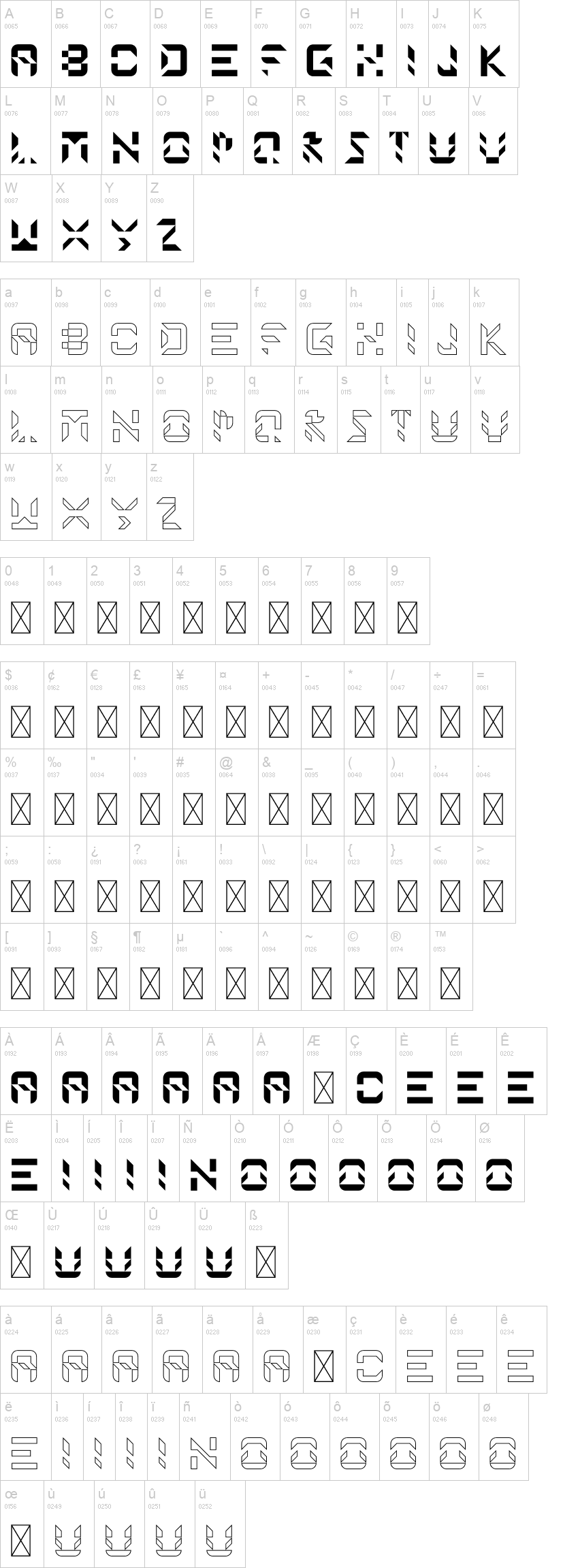
Jig Saw
My name is Alejandro and here is some information on this font.
It is 100% created by me using geometric shapes. It started as a college project and I wanted to take the time to turn it into a font.
I know it is not the most professional font, but I truly believe you can create awesome pieces of work with it.